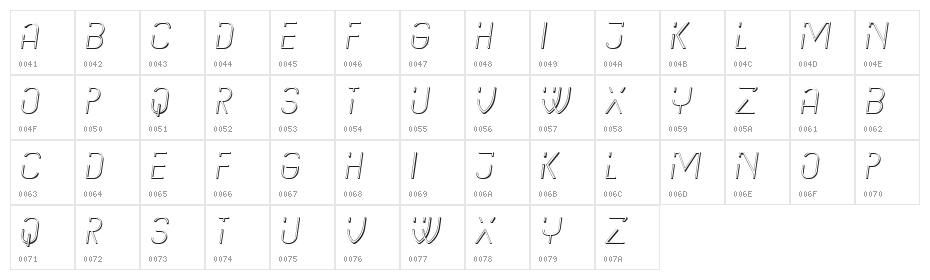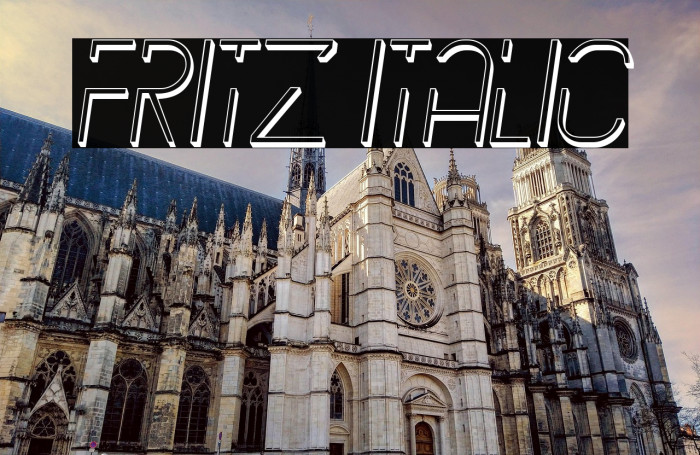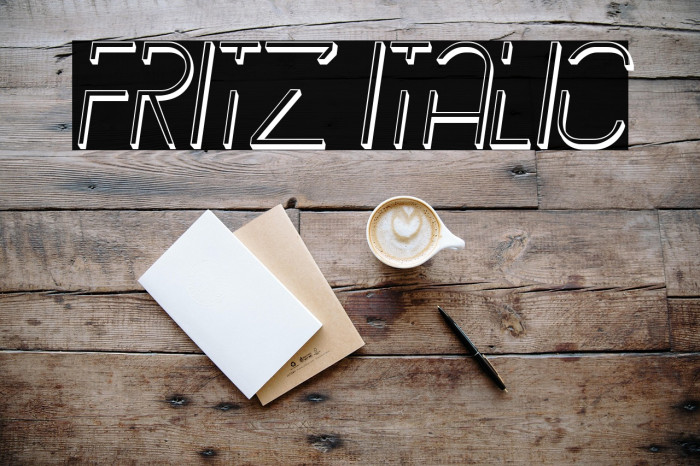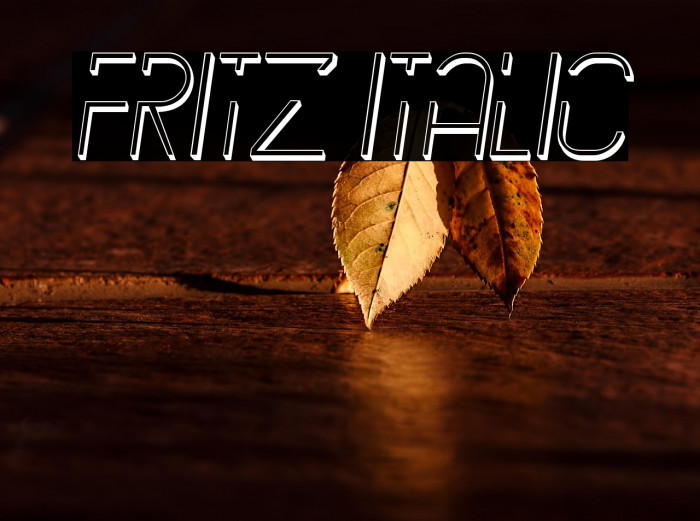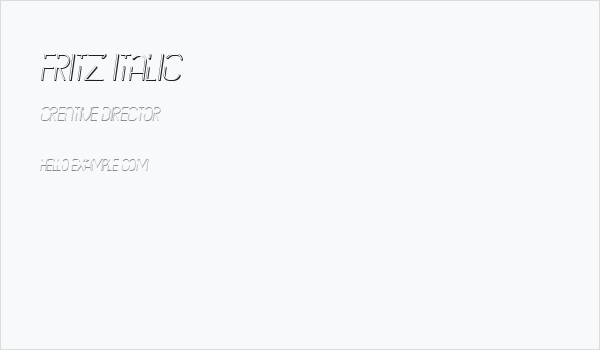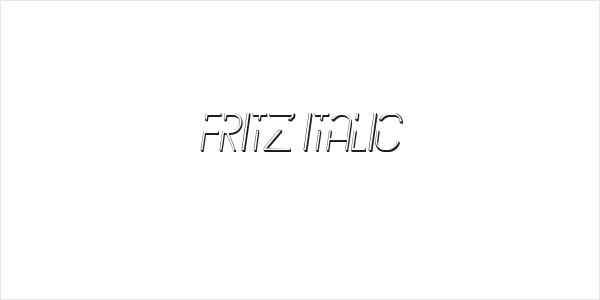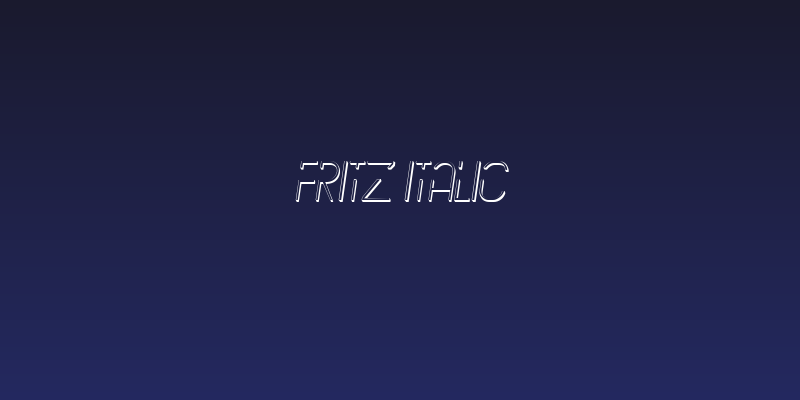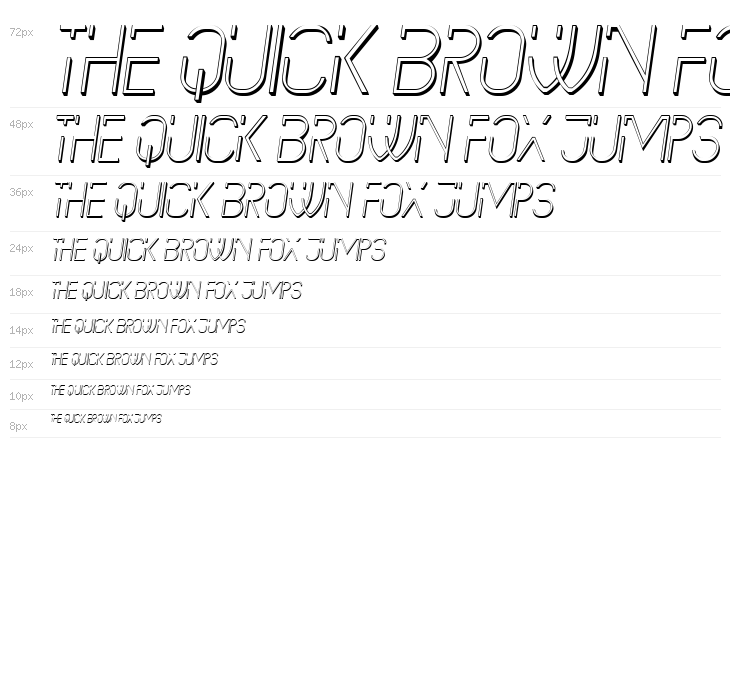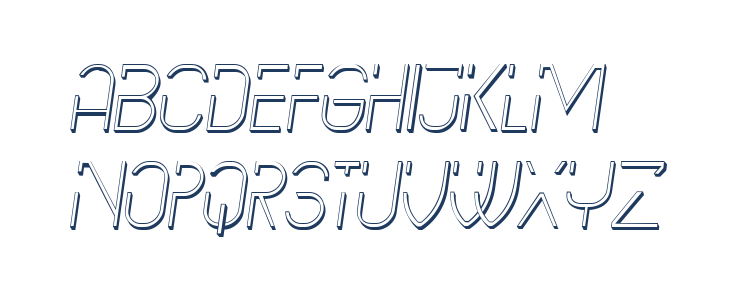
Fritz Italic Font
Fritz Italic Description
This font features a modern, geometric design with a distinct italic slant, giving it a dynamic and forward-moving appearance. The characters are outlined with a double-line effect, creating a sense of depth and dimension. The uppercase letters are bold and angular, while the lowercase letters maintain a consistent style, ensuring readability. The numbers and special characters follow the same design principles, making the font versatile for various applications. Its unique style is suitable for projects that require a futuristic or tech-inspired aesthetic.
| Proposed Projects | Ideal for tech branding, futuristic posters, digital interfaces, and modern advertising campaigns. |